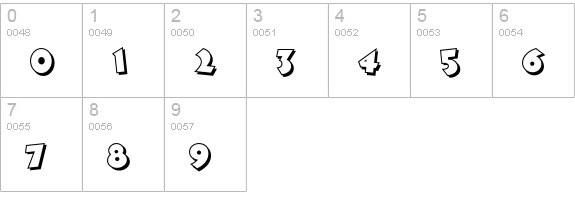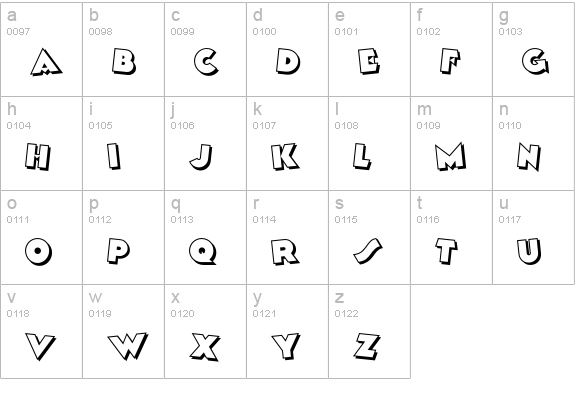
Kobalt-Kartoon Font Details
Introducing Kobalt-Kartoon font, a whimsical and playful typeface perfect for adding a touch of fun to your designs. This unique font features quirky characters and charming details that make it stand out from the crowd. Whether you are working on a children's book, party invitation, or any other creative project, Kobalt-Kartoon is sure to bring a smile to your audience's face. The best part? Kobalt-Kartoon is available for free download at FontsMarket.com. Simply visit the website and start using this delightful font in your projects today. Embrace the creativity and joy that Kobalt-Kartoon brings to your designs, and let your imagination run wild with this fantastic typeface. Download Kobalt-Kartoon now and elevate your designs with a touch of whimsy and charm.